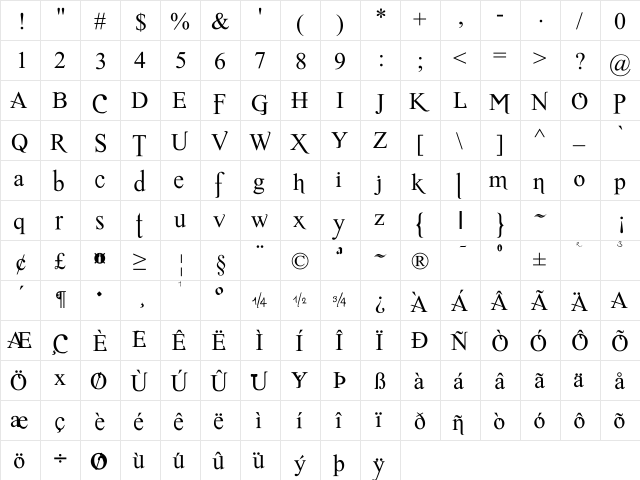
Romance Fatal Serif Timed
Design Context for Romance Fatal Serif Typeface
Romance Fatal Serif brings classic typographic sensibility to the table — its serifs and measured letterforms reflect centuries of print heritage.
Pro Tip: Use Romance Fatal Serif for editorial body copy and considered headline work. Pair with a neutral sans for UI elements or captions to create a classic hierarchy.